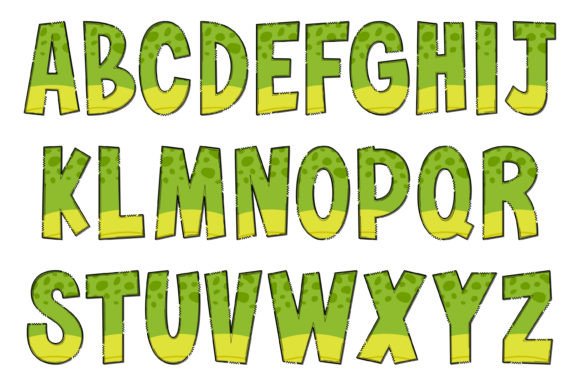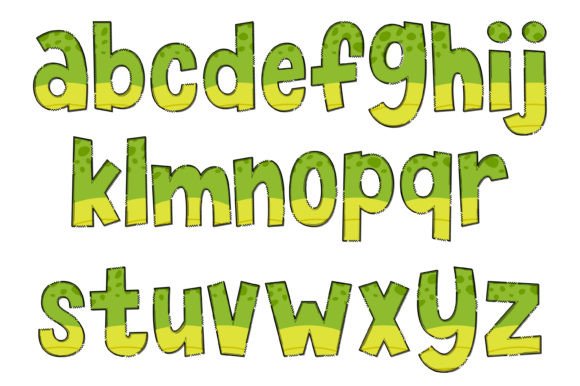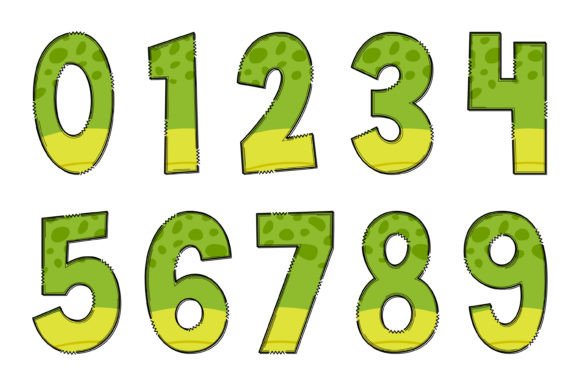
Introducing Green Dinous: The Lively and Invigorating Color Font for Nature-Inspired Designs
In the world of design, typography plays a crucial role in conveying messages, evoking emotions, and creating a lasting impression. For designers and crafters looking for a font that embodies the essence of nature, growth, and harmony with the environment, we are excited to introduce Green Dinous – a vibrant and refreshing color font that is sure to breathe life into your designs.
The Inspiration Behind Green Dinous
Green Dinous is more than just a font – it’s an experience. Inspired by the lush greenery of nature, this lively typeface combines intricate details with vibrant green shades to create a truly unique visual identity. The font’s design is rooted in the idea of growth, renewal, and the beauty of the natural world. Whether you’re working on a project that promotes sustainability, eco-friendliness, or simply want to add a touch of freshness to your designs, Green Dinous is the perfect choice.
Key Features of Green Dinous
So, what makes Green Dinous stand out from the rest? Here are some of its key features:
- Vibrant Green Shades: Green Dinous boasts a range of vibrant green shades that evoke feelings of energy, vitality, and growth.
- Intricate Details: The font’s intricate details add a level of sophistication and elegance, making it perfect for designs that require a touch of refinement.
- Nature-Inspired: Green Dinous is deeply rooted in nature, making it an ideal choice for projects that promote sustainability, eco-friendliness, and environmental harmony.
- Multilingual Support: Green Dinous supports multiple languages, making it a versatile font for designers and crafters working on international projects.
Perfect for Nature-Inspired Projects
Green Dinous is the perfect font for designers and crafters working on projects that celebrate nature, growth, and sustainability. Here are some project ideas where Green Dinous can shine:
- Eco-Friendly Branding: Use Green Dinous to create a brand identity that promotes sustainability and environmental responsibility.
- Nature-Inspired Art: Add a touch of whimsy and wonder to your nature-inspired art with Green Dinous.
- Outdoor Gear and Apparel: Perfect for designing logos, packaging, and marketing materials for outdoor gear and apparel brands.
- Gardening and Horticulture: Use Green Dinous to create labels, signage, and marketing materials for gardening and horticulture projects.
Tips for Using Green Dinous Effectively
To get the most out of Green Dinous, here are some tips for using the font effectively:
- Experiment with Color Combinations: Try pairing Green Dinous with complementary colors to create a unique visual identity.
- Use it as a Headline Font: Green Dinous makes a great headline font – use it to grab attention and add a pop of color to your designs.
- Mix and Match with Other Fonts: Combine Green Dinous with other fonts to create a visually appealing typography hierarchy.
Green Dinous is a game-changing color font that is sure to breathe life into your designs. With its vibrant green shades, intricate details, and nature-inspired design, this font is perfect for projects that promote sustainability, growth, and harmony with the environment. Whether you’re a designer, crafter, or simply someone who appreciates the beauty of nature, Green Dinous is an excellent addition to your typography toolkit.